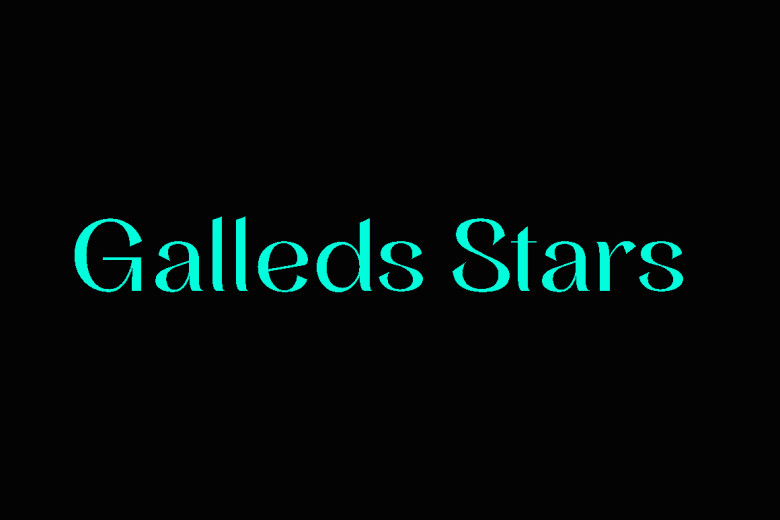
Galleds Stars Font
Galleds Stars is a Display Typeface, a one font with a minimalist but outstanding style suitable for anything from movie titles, music album cover, magazine, beauty product ads, to wedding invitations. A minimalist type design that has been loved by professional designers at home and abroad.
Galleds Stars Display Typeface